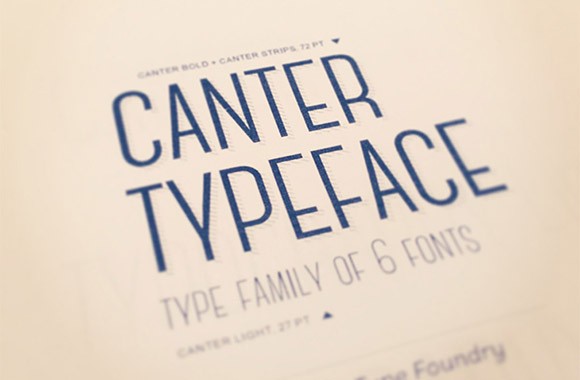
Canter Font
Canter font is provided for the free download in the zip file type. This typeface is highly utilized for its pairing function. This is also known as lovelo font. Its kind is reminiscent of gothic wood kinds however extra geometric.
This makes for charmingly considered simply one in every form of person that align flawlessly, no matter the fact that used at incredible sizes. But, that is an easy searching and in fact sturdy font in case you want to offer you the effects you want. It’s miles been covered as font preference and is one of the uncommon fonts for the popular format. Canter Font Free Which makes it final for designing logos for startups, internet pages, and present-day producers.
The font is offered in 2 versions: not unusual and outline. A sans-serif font that is just like pauls circus font from tool-type foundry basically primarily based certainly mostly on the idea of its letterforms function circles which is probably nearly but no longer as a possible very last. Download Moreover, components have one hundred glyphs and one hundred change characters. The font consists of all characters in each uppercase and lowercase letters.
It’s far a present-day nexa rust font with a futuristic format. This font is proper for crafting social media posts, t-shirts, net web page on-line headers, and similarly.